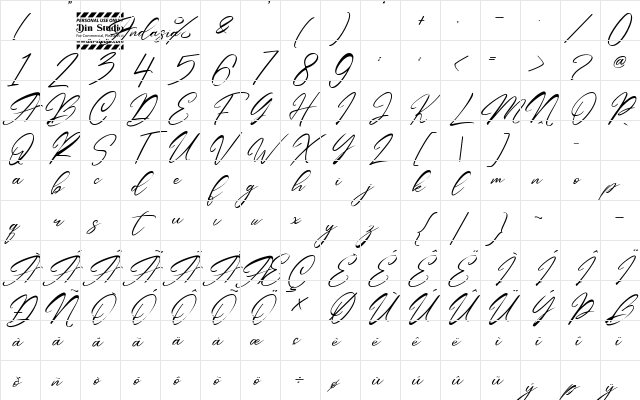
Andasia Personal Use Only Regular Free Font
Andasia Personal Use Only Regular
Designer: Donis Miftahudin
Design Context for Andasia Personal Use Only
Andasia Personal Use Only is a composed and adaptable typeface that performs quietly and consistently across a wide range of design contexts.